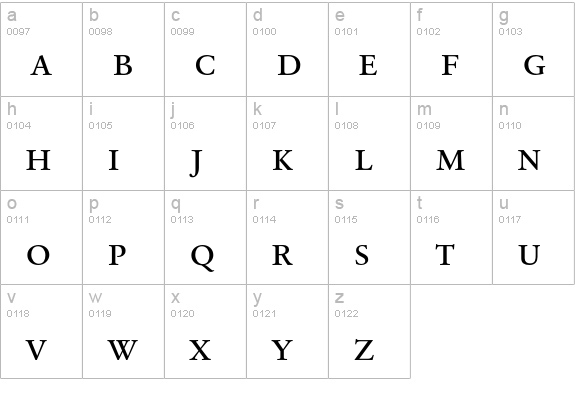
Sabon Roman Small Caps & Oldstyle Figures Font Details
Sabon Roman Small Caps & Oldstyle Figures font is a classic and elegant typeface that exudes sophistication and refinement. It is the perfect choice for projects that require a touch of timeless beauty and grace. The small caps add a touch of distinction to any text, making it stand out with a sense of authority and importance. The oldstyle figures, on the other hand, bring a sense of tradition and history, giving your designs a vintage charm. This font is meticulously crafted, with each letter meticulously designed to ensure a harmonious and balanced overall look. The letterforms are crisp and clean, with just the right amount of detailing to make them visually appealing without being overwhelming. One of the most remarkable aspects of Sabon Roman Small Caps & Oldstyle Figures font is that it is free. Yes, you heard it right! This stunning typeface is freely available to download at FontsMarket.com. You can enjoy the beauty and versatility of this font without any cost, making it the perfect choice for designers on a budget or those who simply appreciate a good deal. Whether you are working on a professional project, creating a personal invitation, or designing a website, Sabon Roman Small Caps & Oldstyle Figures font will elevate your work to new heights. Its timeless appeal and exquisite craftsmanship make it a valuable asset for any designer or typographer. Download this font today at FontsMarket.com and experience the beauty and versatility of Sabon Roman Small Caps & Oldstyle Figures font for yourself. It will undoubtedly become a staple in your typographic toolbox, offering endless possibilities for creating stunning and impactful designs.